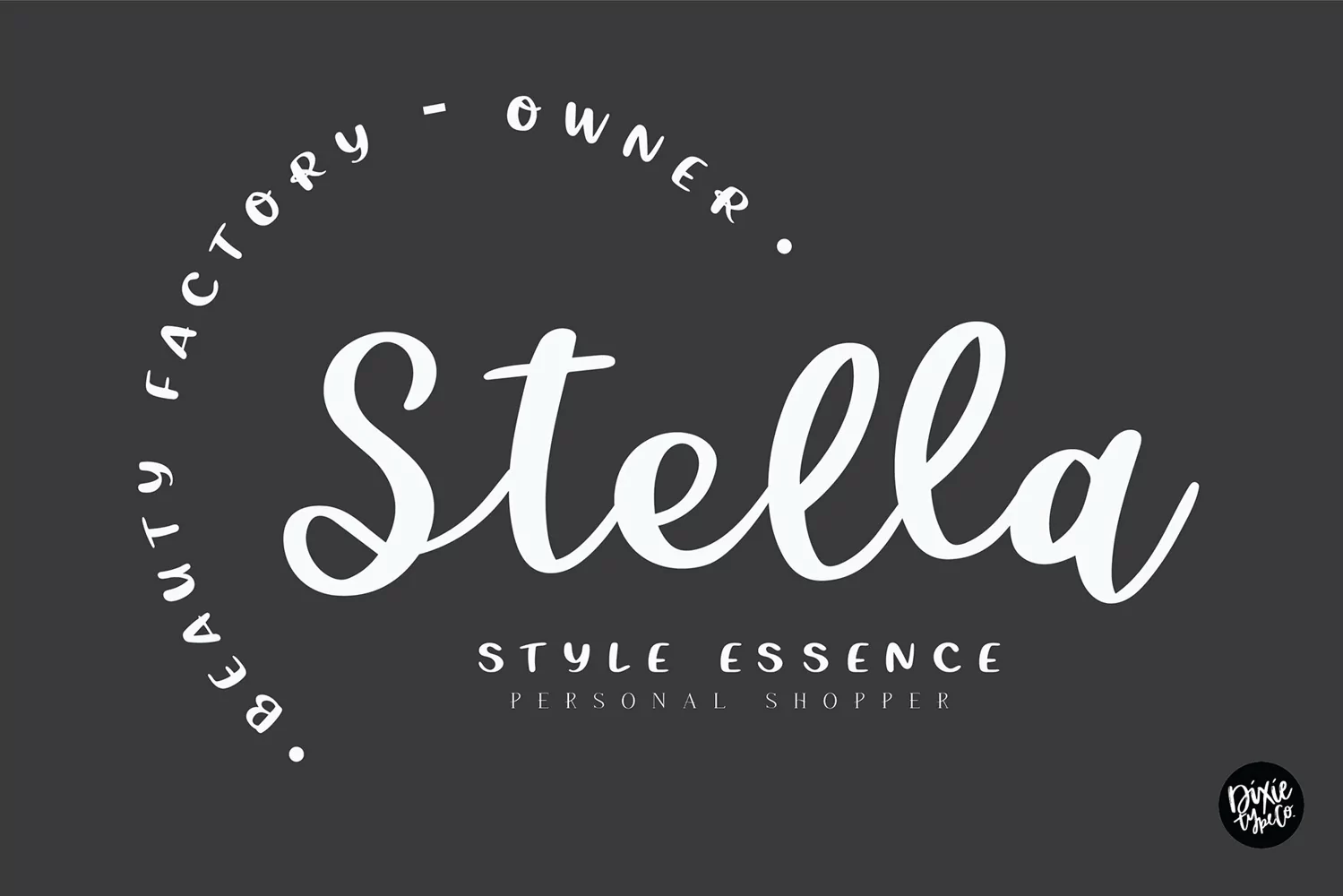
CHEERFUL DESIGNER Script Sans Hand Lettered Font Duo
"Cheerful Designer" script + sans font duo
{ Typographic font duo hand lettered with love by Dixie Type Co. }
DTC Cheerful Designer
DTC Cheerful CAPS
DTC Cheerful Symbols (9 symbols)
These fonts were made as a pair. They work extremely well together or on their own! Both fonts include all letters, basic punctuation, numbers, and an extra symbols file with 9 characters.